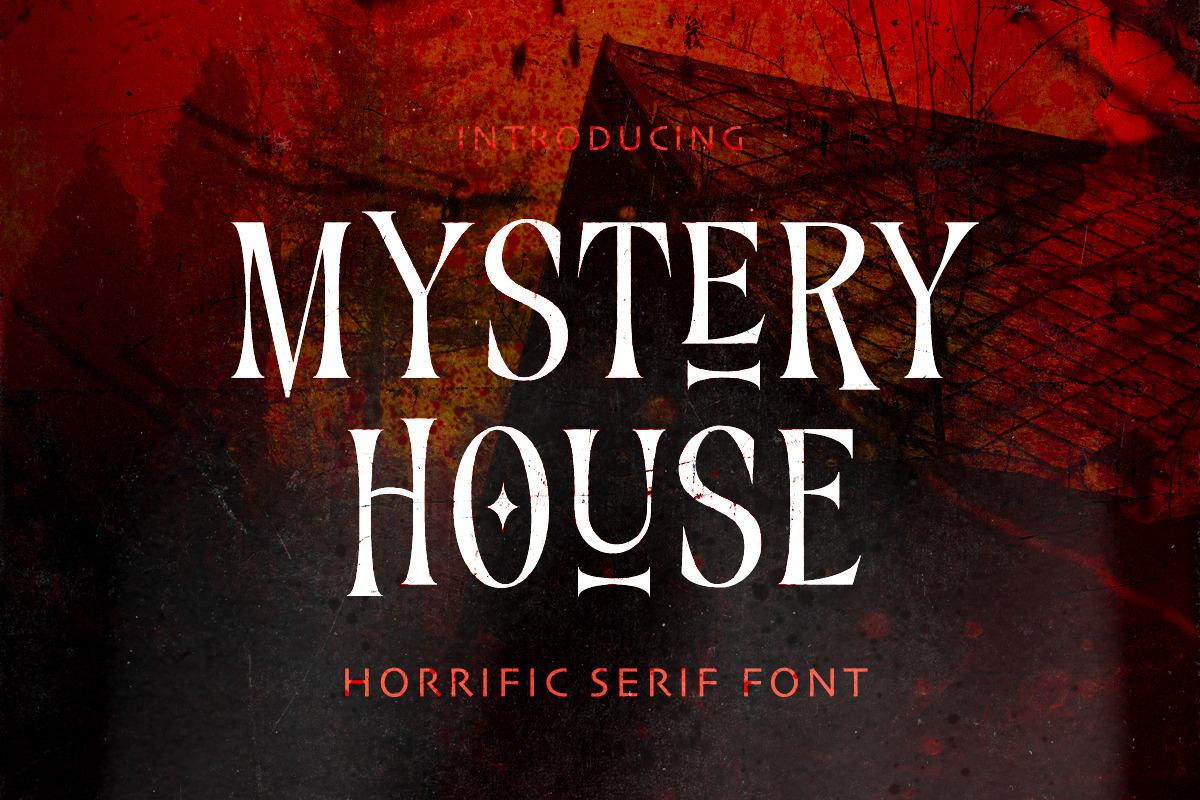
Mystery House - Horrific Serif Free Download
Mystery House – Horrific Serif Font Free Download is a chilling and dramatic typeface crafted to evoke classic horror and suspense. With its sharp serifs, eerie curves, and gothic undertones, Mystery House is perfect for Halloween posters, horror movie titles, haunted house branding, spooky book covers, and thriller-themed projects.
Inspired by vintage horror typography, Mystery House – Horrific Serif Font Free Download delivers a haunting aesthetic that blends elegance with terror. Its theatrical presence makes it ideal for headlines and titles that need to set a dark, mysterious tone—whether in print or digital media.